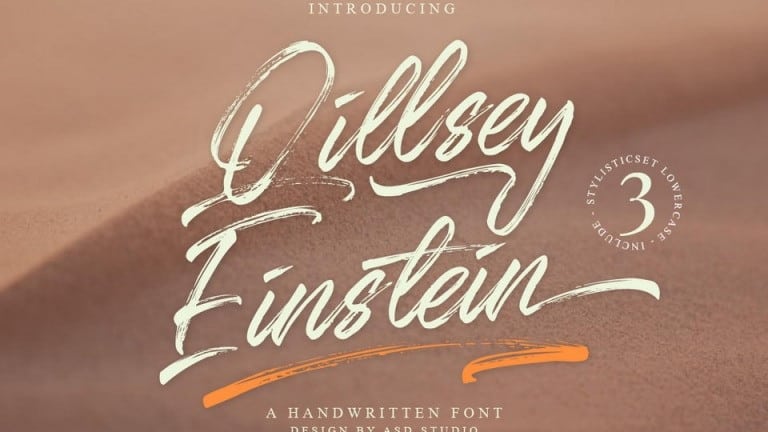
Qillsey Einstein Brush Font
Qillsey Einstein Font is made with natural hand brushes. With the unique Open type in it and the ligature will add aesthetic value to your design product. Available in this file are Qillsey Einstein Fonts and also Swash which you can unite into an amazing design.